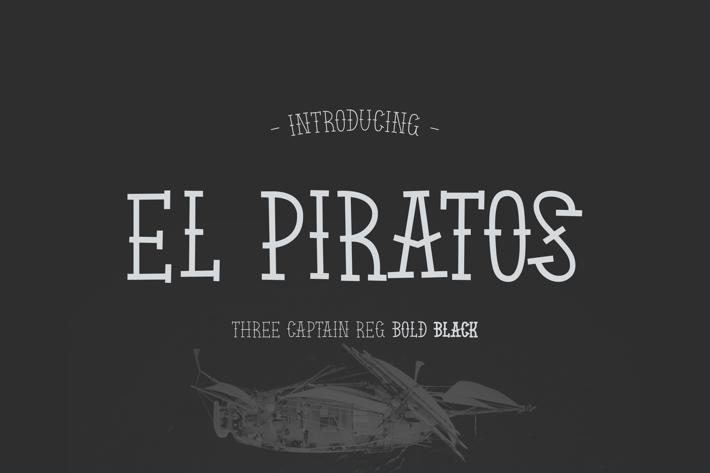
EL PIRATOS - Sailor Tattoo Font
An all caps font with 3 (three) weight, Reguler, Bold, and Black. With clean cut old tattoo style, a bit bouncy, and a lot of excitement.
El Piratos is the captain of the rough fontography sea.
Yarr !!